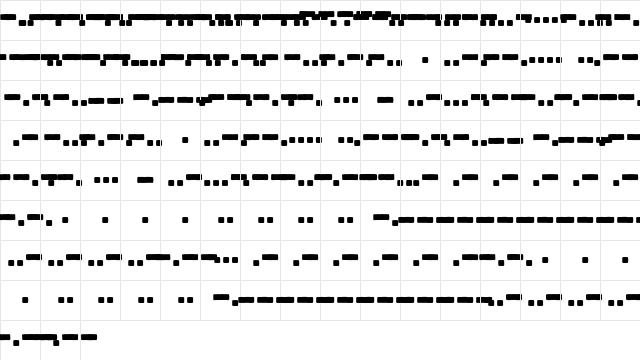
Bootcamp Morsecode Regular
Design Context for Bootcamp Morsecode Typeface
Bootcamp Morsecode uses fixed-width spacing throughout, giving it the structured, systematic character associated with coding environments and technical documentation.
Well-suited to data-driven dashboards, coding tutorials, and any design that wants to reference the world of programming.
Pro Tip: Use Bootcamp Morsecode with slightly increased line-height for extended reading — fixed-width spacing can feel dense in longer passages without extra breathing room.